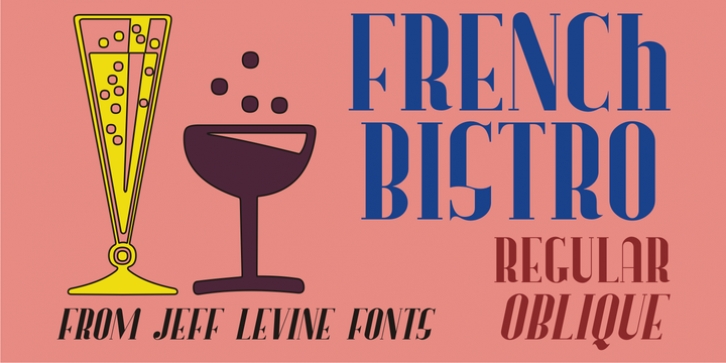
French Bistro JNL was designed by Jeff Levine and published by Jeff Levine. French Bistro JNL contains 2 styles and family package options.
The 1930s French publication L'Art du Tracé Rationnel de la Lettre was a treasure trove of font revival ideas from the Art Deco era. One example featured a serif typeface with a number of stylized characters.
This is now available as French Bistro JNL, in both regular and oblique versions.